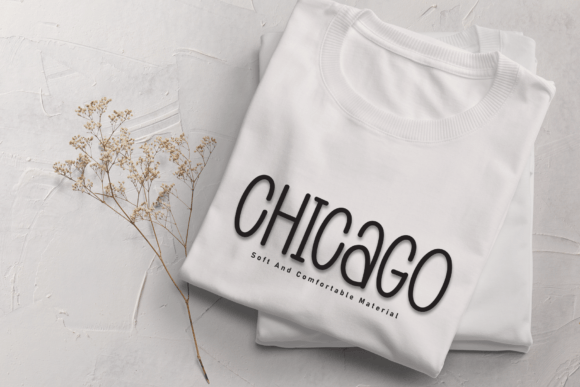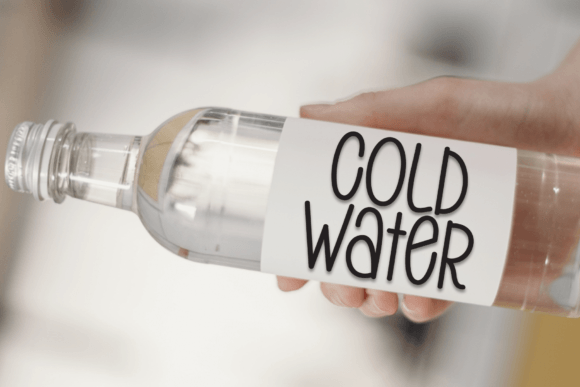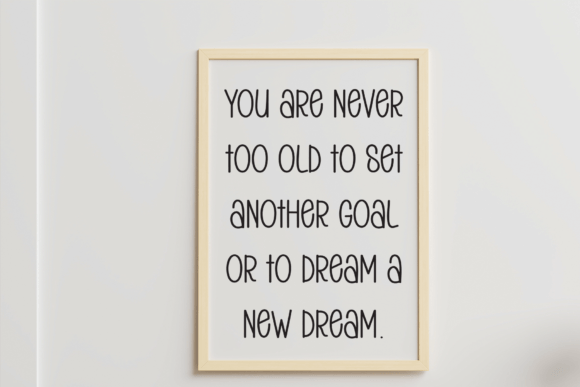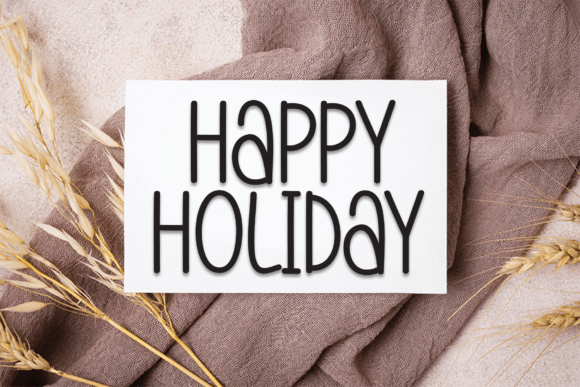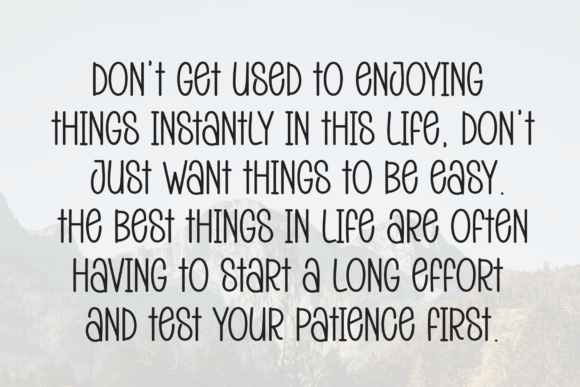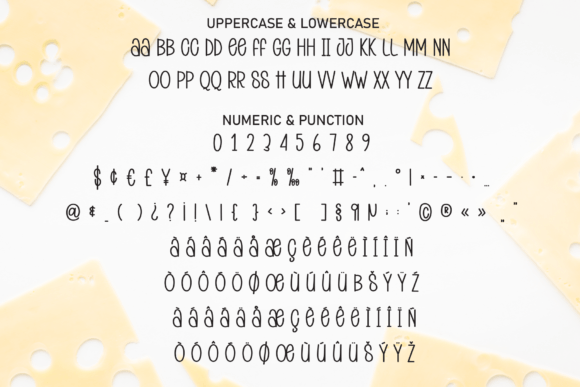
Introducing Cheese Font: The Charming Handwritten Font for Creative Designs
Are you tired of using the same old fonts for your designs? Look no further! We’re excited to introduce Cheese Font, a charming and warm handwritten font that’s sure to grab everyone’s attention. With its pleasant nature, this delightful font excels at dressing up wedding invitations, personalized cards, or any creative design craving for a playful dash of charm!
The Story Behind Cheese Font
Cheese Font is a carefully crafted handwritten font that’s designed to bring a touch of warmth and personality to your designs. The font’s creator aimed to create a unique and playful font that would stand out from the crowd, while still being easy to read and understand. The result is a beautiful, hand-crafted font that’s perfect for a wide range of creative projects.
Key Features of Cheese Font
So, what makes Cheese Font so special? Here are some of its key features:
• Handwritten with love: Cheese Font is a genuine handwritten font, crafted with love and care to give your designs a personal touch.
• Playful and charming: This font is designed to add a playful dash of charm to your designs, making it perfect for creative projects that need a bit of personality.
• Easy to read: Despite its playful nature, Cheese Font is easy to read and understand, making it perfect for use in a wide range of designs.
• Versatile: Cheese Font is a versatile font that can be used in a variety of creative projects, from wedding invitations to personalized cards, and more.
Perfect for Creative Designers and Crafters
Cheese Font is a perfect fit for creative designers and crafters who are looking for a unique and playful font to add to their designs. Whether you’re creating:
• Wedding invitations: Add a touch of elegance and charm to your wedding invitations with Cheese Font.
• Personalized cards: Create beautiful, one-of-a-kind cards for special occasions with Cheese Font.
• Branding and packaging: Use Cheese Font to add a playful touch to your branding and packaging designs.
• Digital and print designs: Cheese Font is perfect for use in a wide range of digital and print designs, from social media graphics to brochures and more.
Tips for Using Cheese Font
Here are some tips for getting the most out of Cheese Font:
• Pair with other fonts: Experiment with pairing Cheese Font with other fonts to create unique and interesting combinations.
• Use in headlines and titles: Cheese Font is perfect for use in headlines and titles, where its playful nature can really shine.
• Add a personal touch: Use Cheese Font to add a personal touch to your designs, making them feel more handmade and unique.
In conclusion, Cheese Font is a charming and warm handwritten font that’s sure to grab everyone’s attention. With its pleasant nature and playful charm, this delightful font excels at dressing up wedding invitations, personalized cards, or any creative design craving for a playful dash of charm! Whether you’re a designer or crafter, Cheese Font is a must-have font for your creative projects.